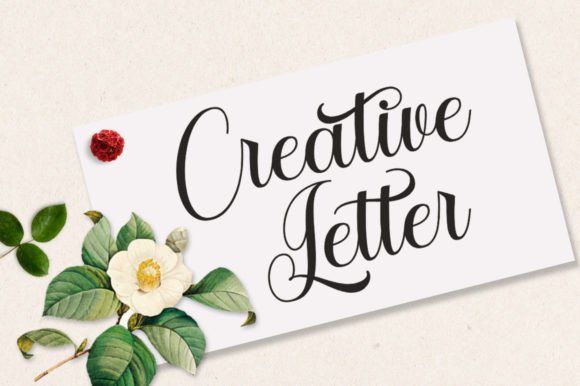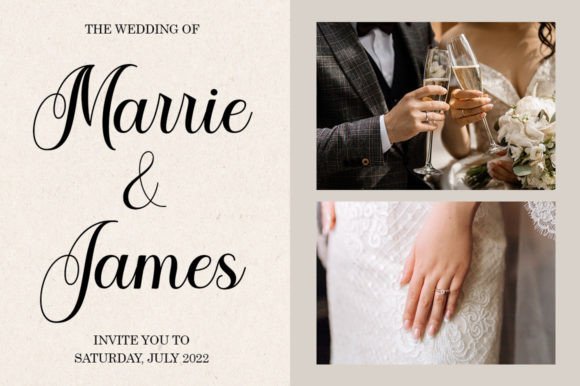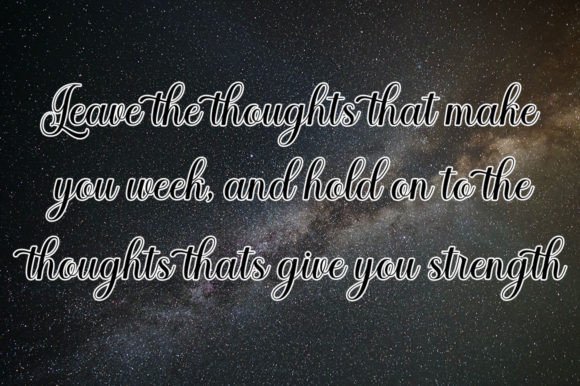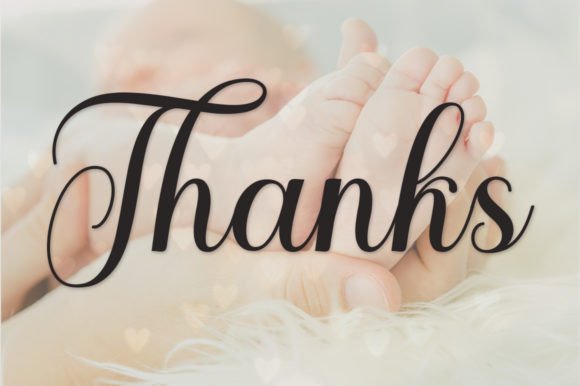
Introduction to Litle Love Font
Have you ever stumbled upon a design project that sparks a wave of creative enthusiasm, making you want to dive in and bring your ideas to life? For designers, those moments are what make the job so rewarding. One of the keys to unlocking that creative spark lies in the right tools, and a high-quality font can make all the difference. That’s where the Litle Love Font comes in – a modern calligraphy font that’s perfect for giving your projects a personal touch.
Whether you’re working on a logo, branding, or invitation, the Litle Love Font is a valuable addition to any design resource. Its PUA-encoded glyphs and swashes make it easy to access and customize, allowing you to add a unique touch to your work. With a transparent background, you can seamlessly integrate it into any design, from a blog post to a high-end creative project.
Key Features of Litle Love Font
- High-quality design resource for creative projects, ideal for digital and print media.
- Includes a transparent background, making it easy to use in various design scenarios.
- Features a unique, hand-drawn style that adds a touch of personality to any design.
- Suitable for use in a variety of creative projects, including logos, branding, and typography-based designs.
Honest Review: Litle Love Font
I recently stumbled upon the Litle Love Font and I must say, it’s a delightful addition to any creative project. This font exudes a sense of whimsy and playfulness that’s perfect for designers looking to add a touch of elegance to their designs.
What works well is the font’s versatility. It can be used for a wide range of applications, from headings to body text, and even as a standalone design element. The high quality of the font makes it a valuable resource for any designer.
However, there are a few limitations to consider. The font is not available in as many weights and styles as some other popular fonts. Additionally, the font’s playfulness may not be suitable for all design projects.
Overall, I’m impressed with the Litle Love Font. Its unique character and high quality make it a valuable design resource. While it may not be perfect for every project, it’s definitely worth adding to your font collection.
Tips for Getting the Most Out of Litle Love Font
Litle Love Font is a great resource for designers working on creative projects that require a high-quality, unique font. It’s perfect for branding, marketing materials, and social media graphics. You can use it to create invitations, business cards, and other design elements that require a touch of elegance and sophistication.